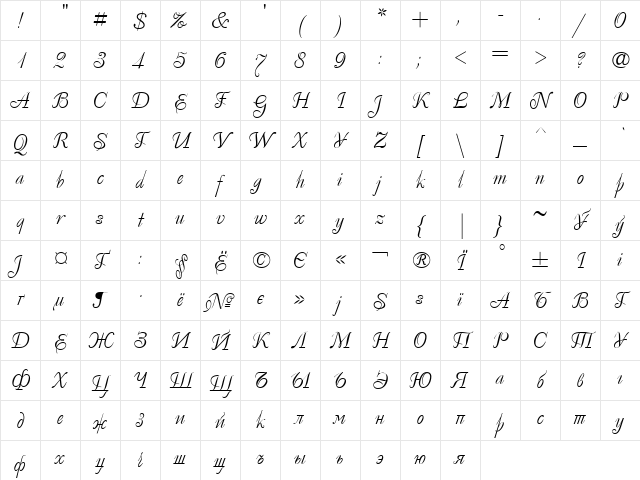
UkrainianDecor Regular
Design Context for UkrainianDecor
UkrainianDecor is a composed and adaptable typeface that performs quietly and consistently across a wide range of design contexts.